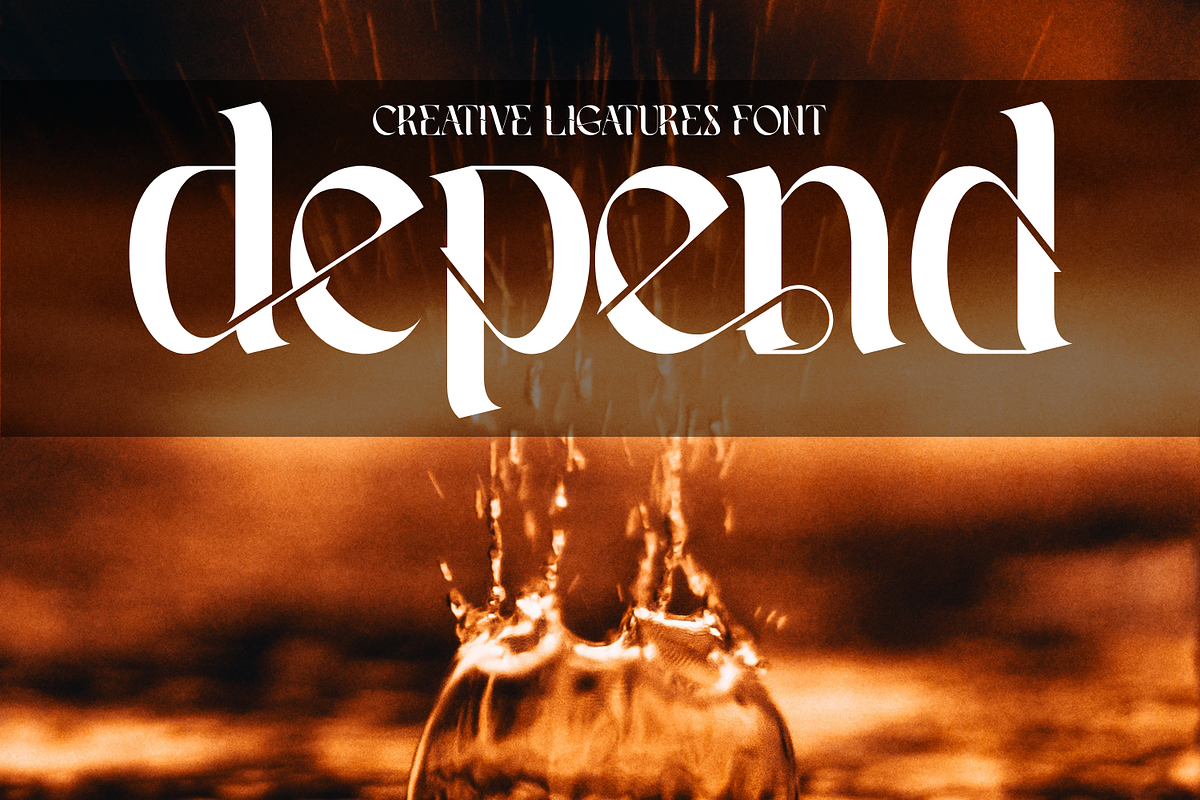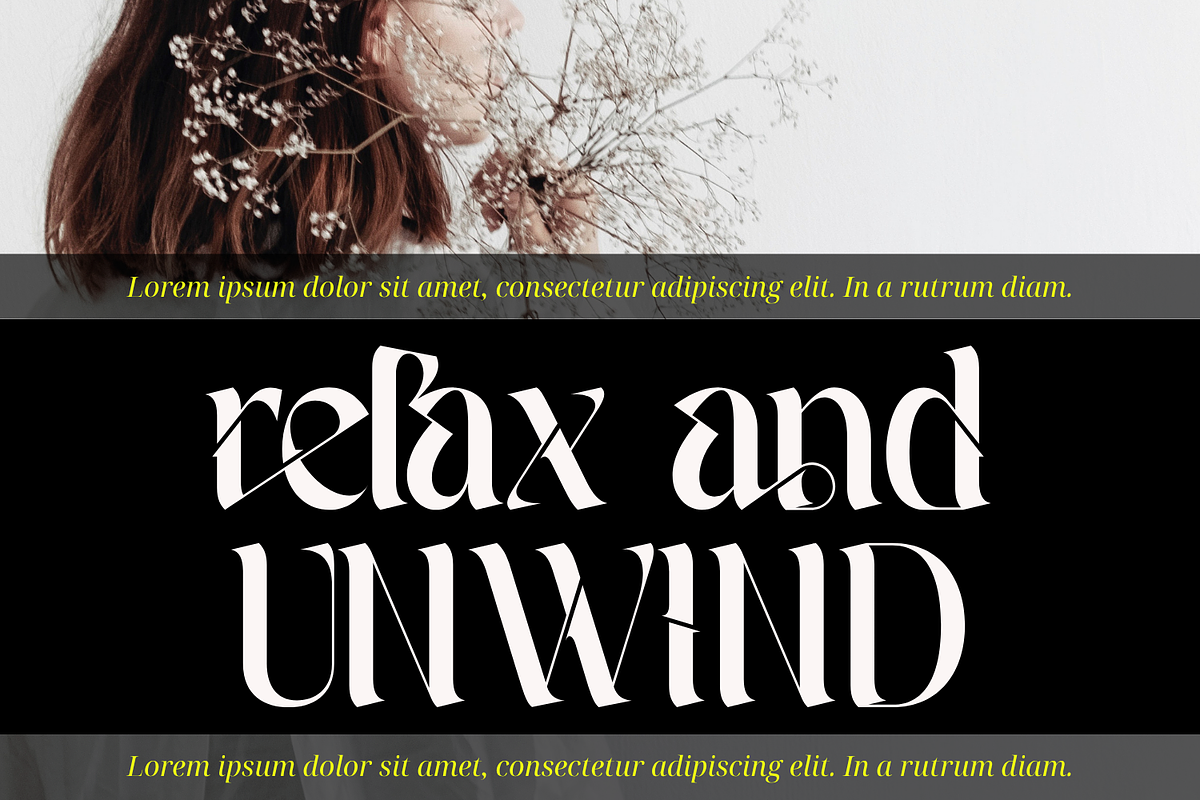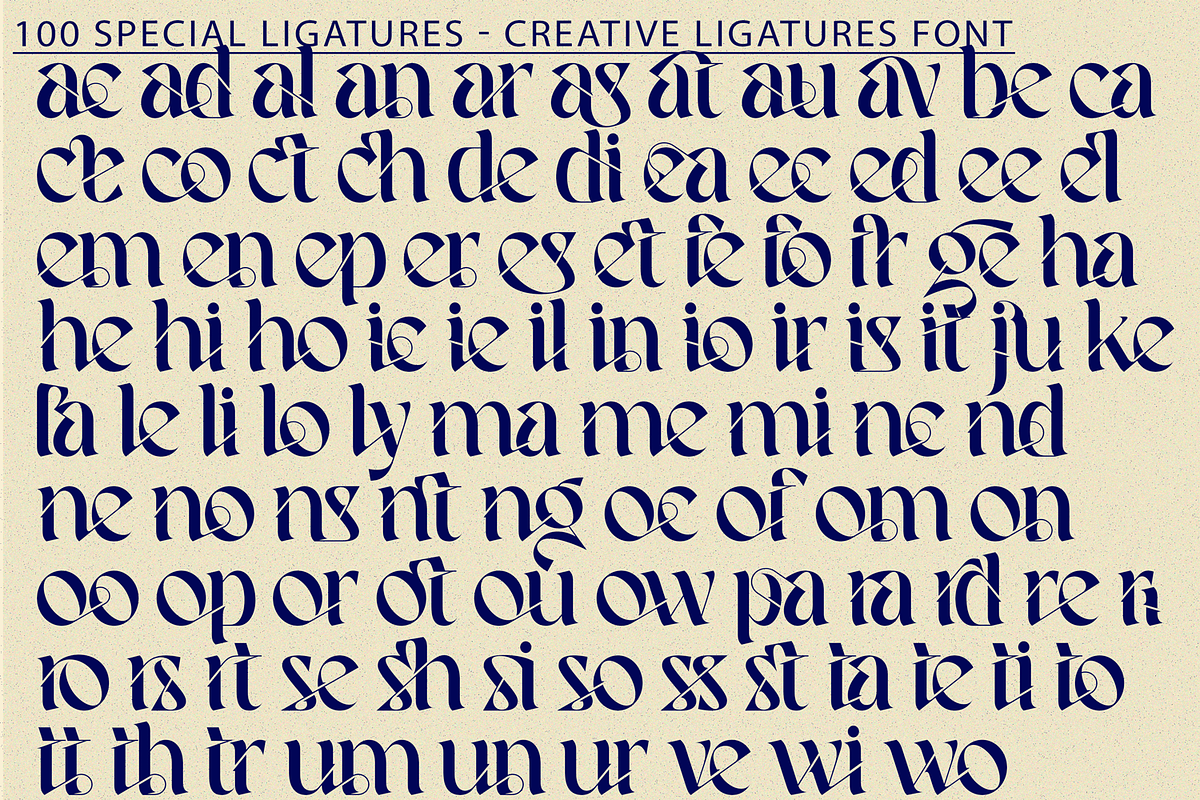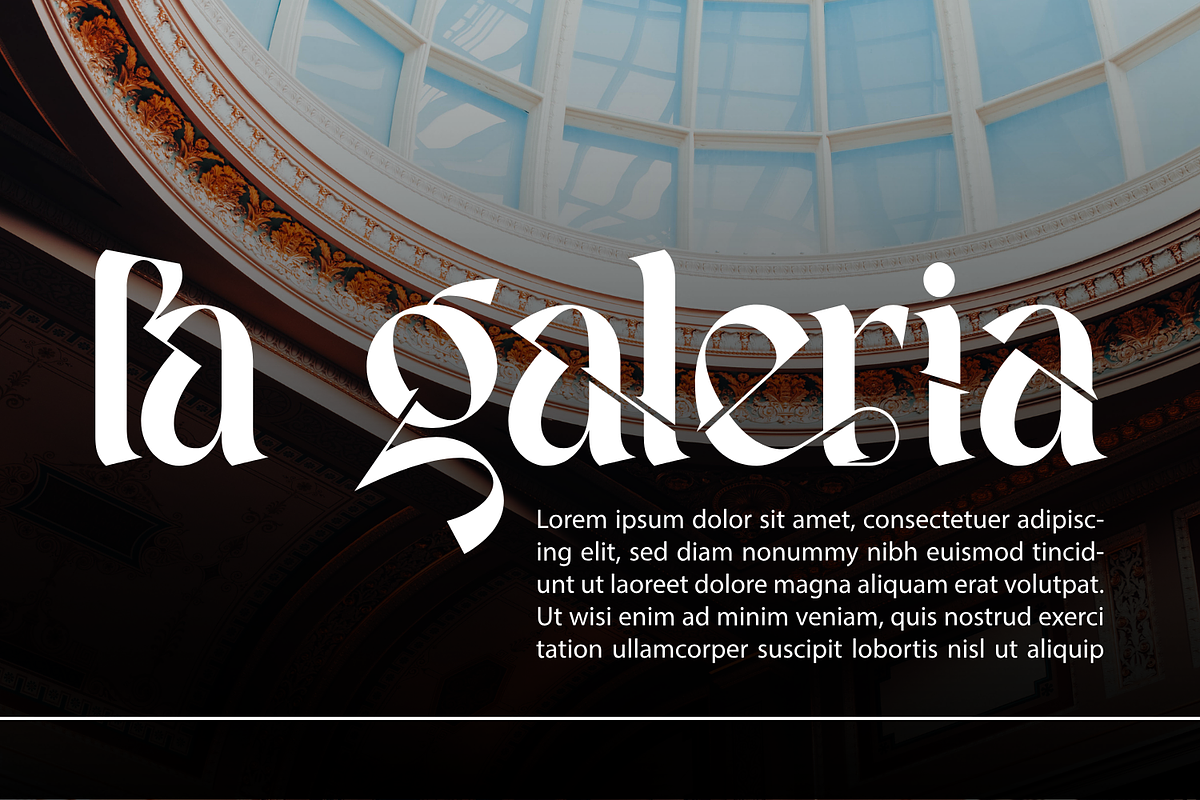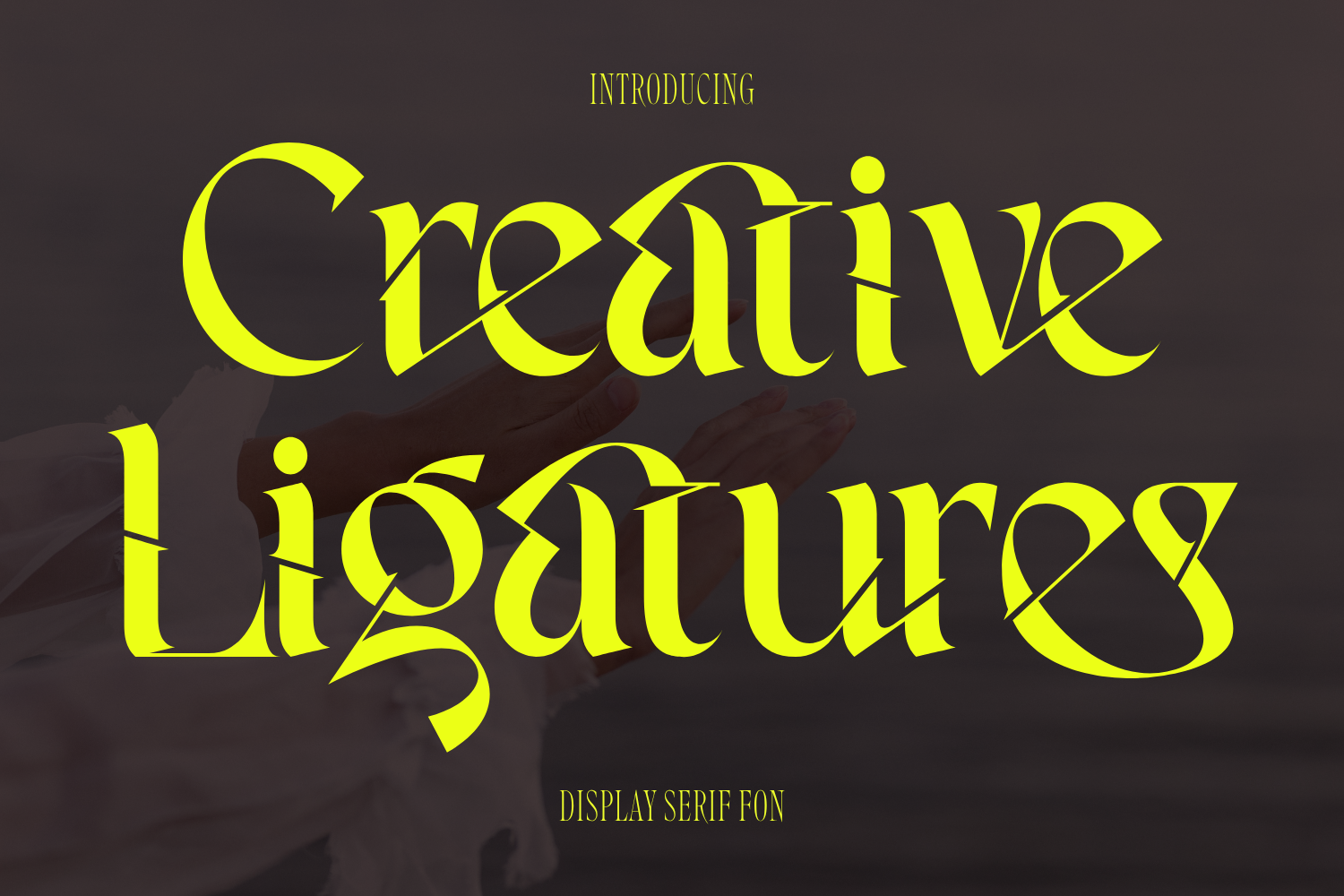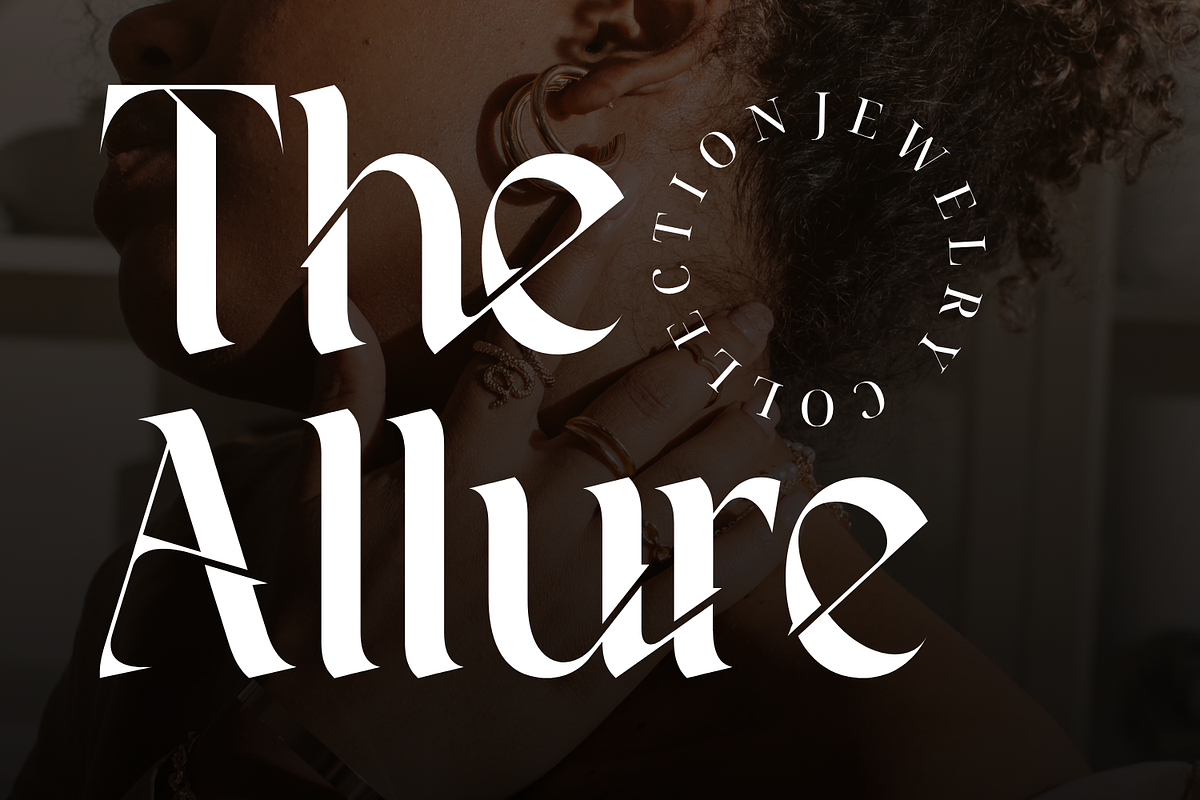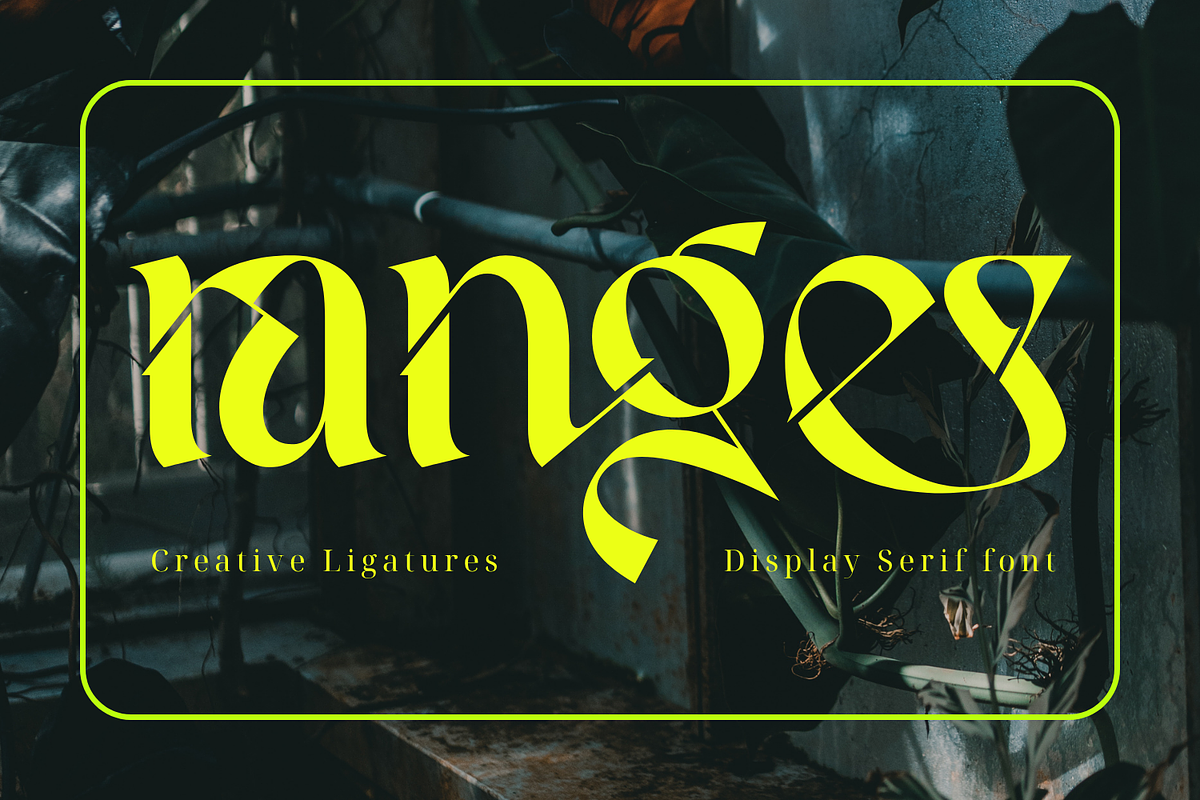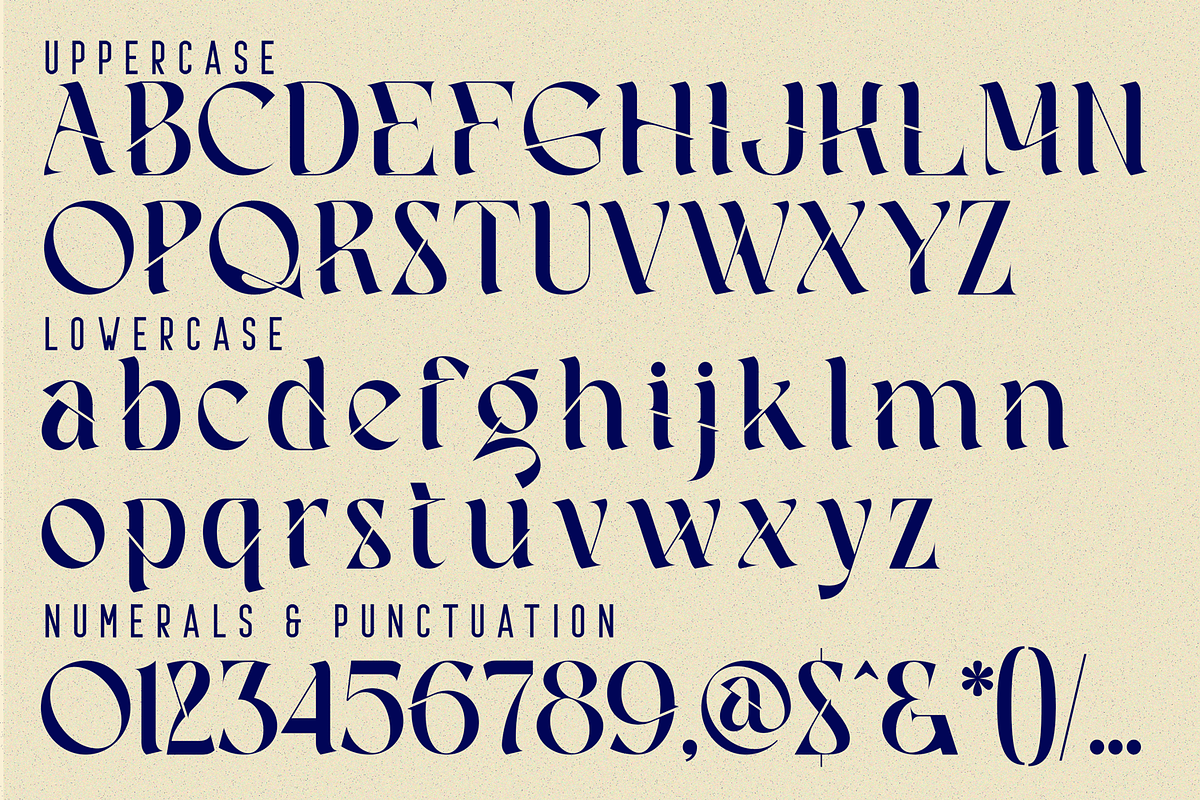
Creative Ligatures Font
Creative Ligatures Font is a bold experimental serif font that celebrates the art of letterform connection. With high contrast strokes and dramatic diagonals, this typeface introduces a unique rhythm through hundreds of imaginative ligatures and sweeping terminals. Inspired by modern calligraphy and typographic innovation, Creative Ligatures is perfect for branding, editorial design, fashion campaigns, and bold statement posters. The characters are meticulously crafted to form harmonious, expressive ligatures that transform text into visual poetry.
- Uppercase and Lowercase Letters
- ~100 Creative Ligatures
- Accented Characters (Multilingual Support)
- Highly stylized cuts and stroke intersections
About 100 ligatures combined with Stylistic Alternates Font:
ac ad al an ar as at au av be ca ce ch co ct de di ea ec ed ee el em en ep er es et fe fo fr ge ha he hi ho ie ic il in io ir is it ju ke la le li ll lo ly ma me mi nc nd ne ng no nt ns oc of om on oo op or ot ou ow pa pr ra rd re ri ro rs rt se sh si so ss st ta te th ti to tr tt um un ur ve wi wo